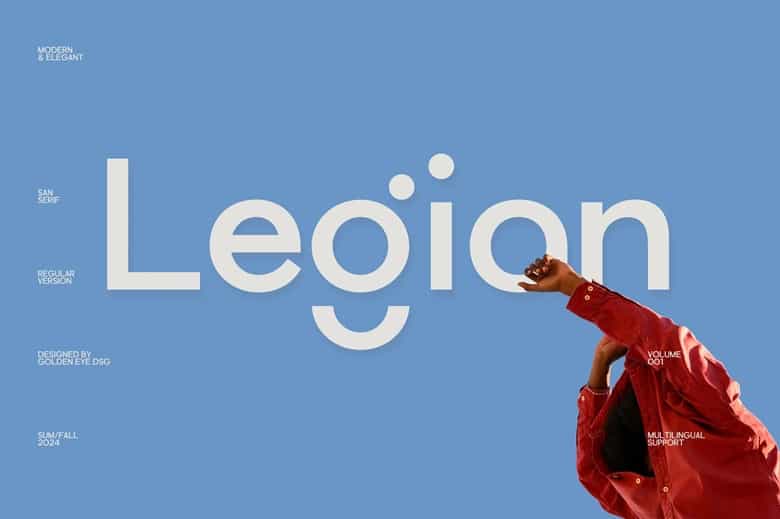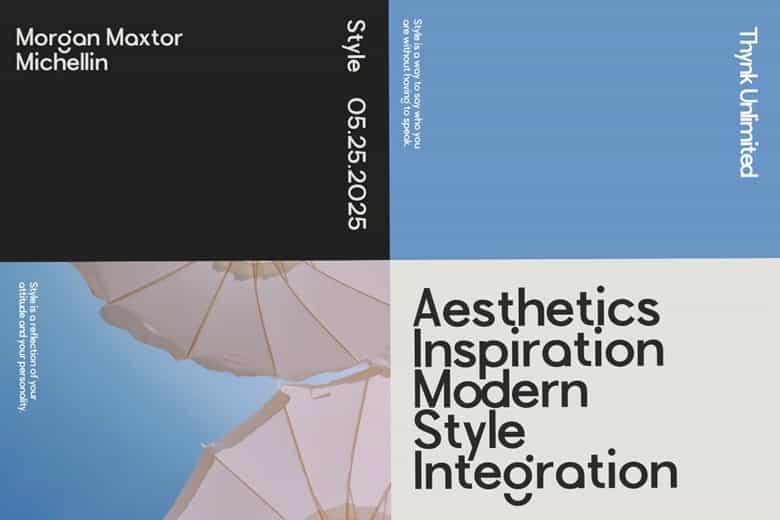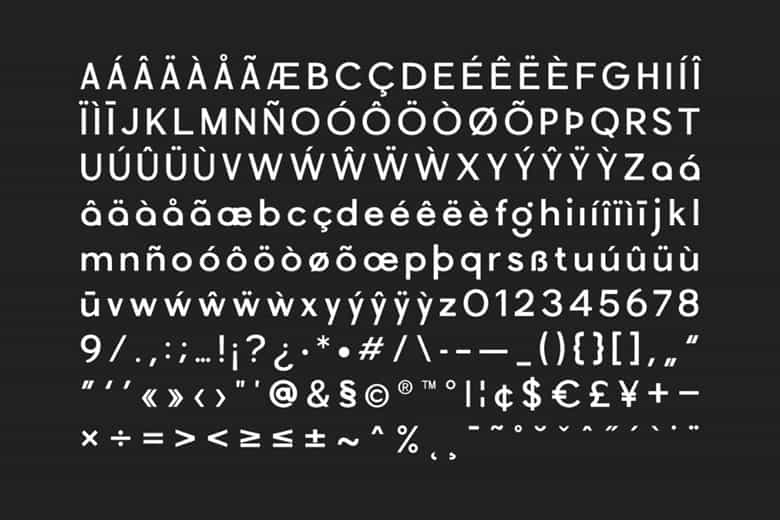
Legian is a modern sans serif font with an elegant look, perfect for branding, logos, invitations, wedding, typography quotes, book covers, website headers, magazines, product packaging and more.